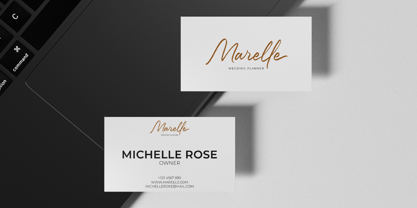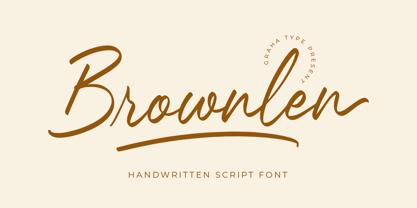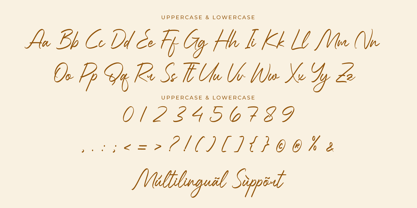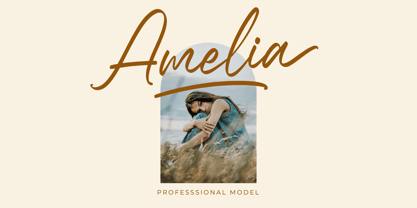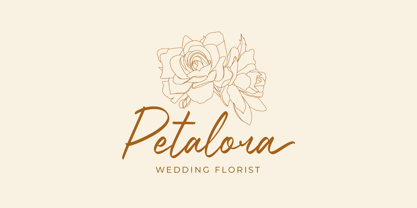
Brownlen
by Graha Type
The Brownlen Font Family was designed by Toni Nugraha and published by Graha Type. Brownlen contains 1 styles.
Brownlen is a handwritten script font designed with an elegant, neat, and modern touch. With smooth hand-drawn strokes and well-structured letterforms, this font creates a professional look while still maintaining a personal and warm feel. The design of Brownlen makes it perfect for a variety of purposes, from logotypes and branding to wedding invitations or other creative projects.
Brownlen’s main strength lies in its balance between the natural feel of handwriting and clean modernity. Its consistent strokes and clear characters make it highly readable, both on digital screens and in print media. With its versatile style, Brownlen can be used for minimalist designs or even more decorative ones, depending on your project needs.
Multilingual Support